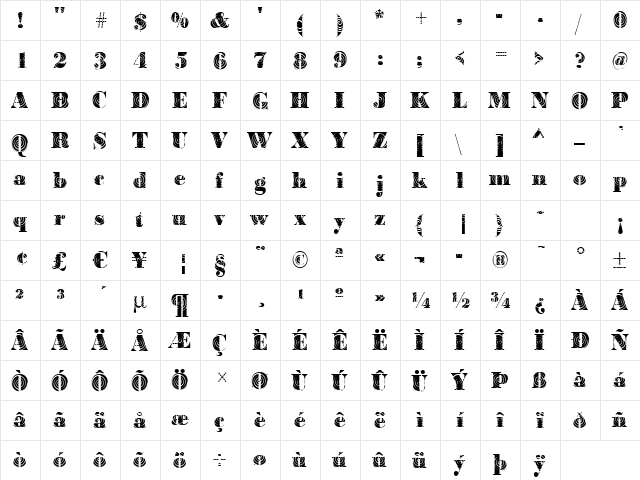
BodoniWinding Regular Font Preview
BodoniWinding Regular
BodoniWinding Regular Font Details
Design Context for BodoniWinding Typeface
BodoniWinding takes a measured approach to typography — its balanced proportions and neutral character make it a reliable workhorse for both digital and print work.